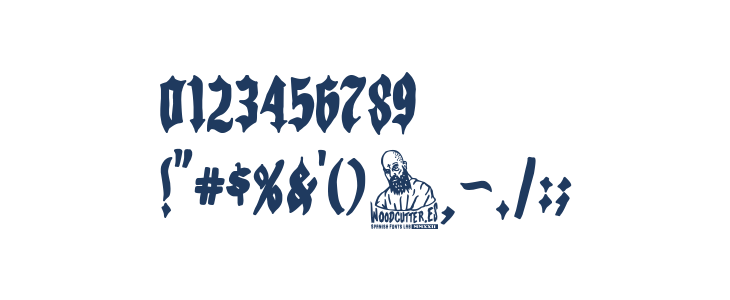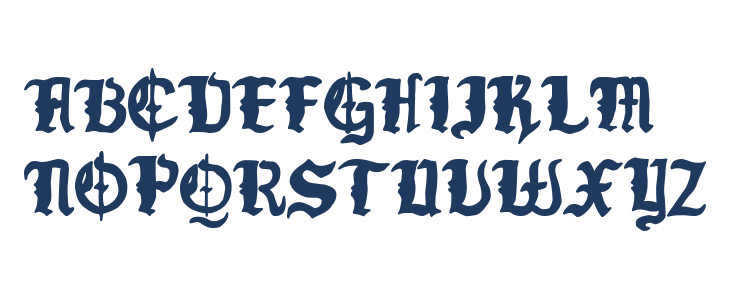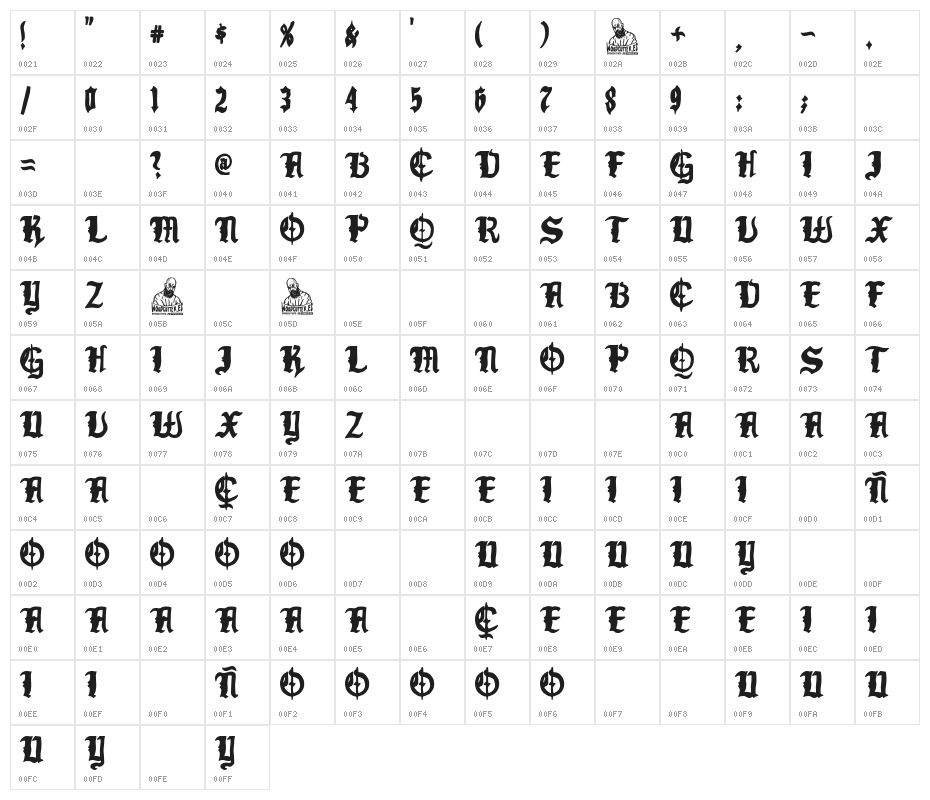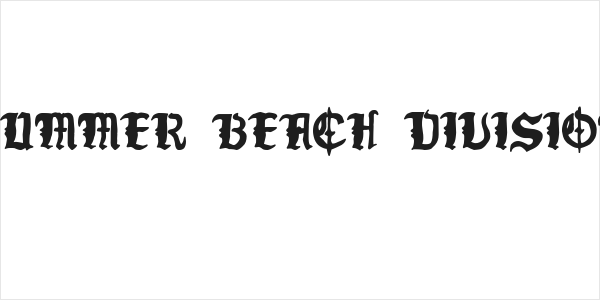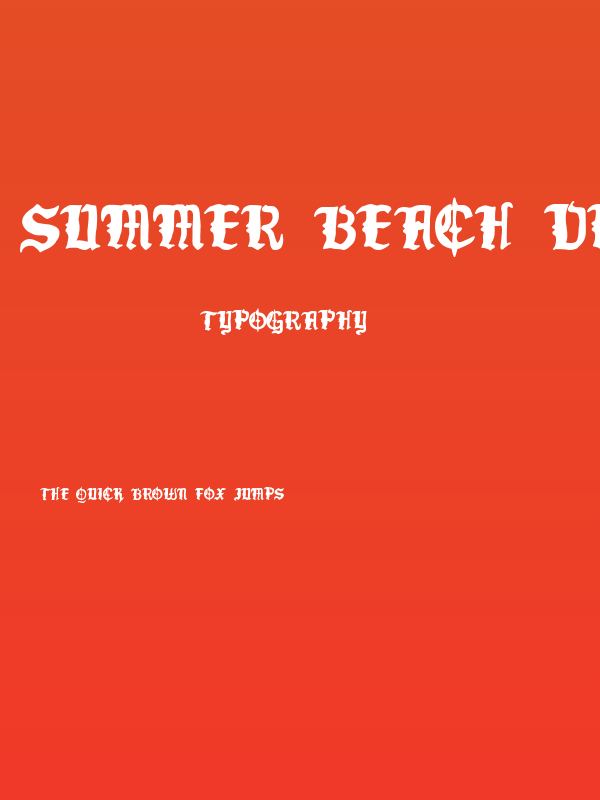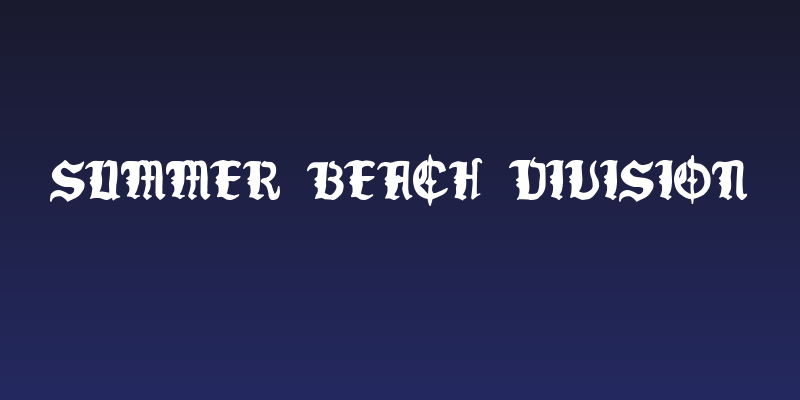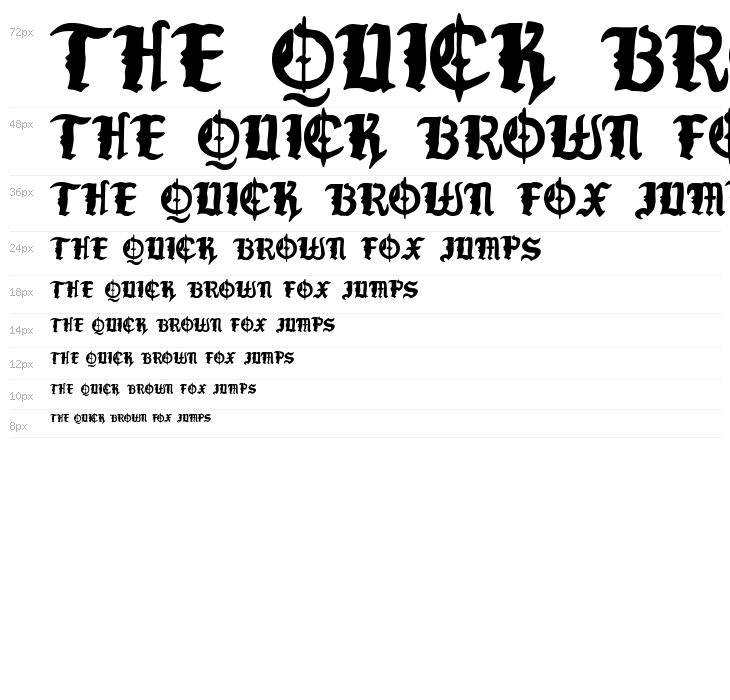
Summer Beach Division Font
Summer Beach Division Description
A bold, angular typeface with dramatic, pointed serifs and heavy strokes, reminiscent of traditional blackletter or Gothic styles. The characters are ornate, featuring sharp edges and decorative elements, especially in the uppercase set. Numbers and punctuation maintain the same bold, stylized appearance.
| Overall Style | Decorative, Gothic, Vintage |
| Proposed Projects | Posters, tattoo designs, band logos, event flyers, gothic or medieval-themed branding. |